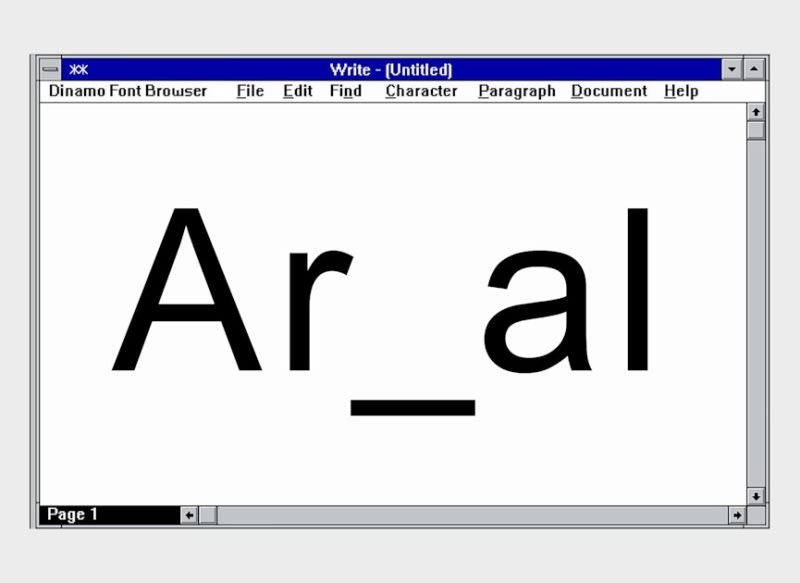
Are.na partnered with design studio Dinamo to create Areal, a custom typeface that's a complete redraw of Arial. The project involved extensive research into Arial's history, tracing back to its 1996 internet version through digital screenshots. Dinamo rebuilt Arial from scratch with modern improvements like variable font capabilities, dark mode optimization, and additional characters while maintaining visual similarity to the original. The collaboration reflects both platforms' philosophy of thoughtful iteration and honoring existing design while making meaningful improvements.